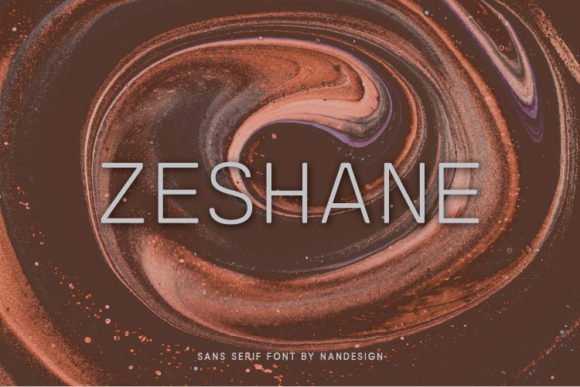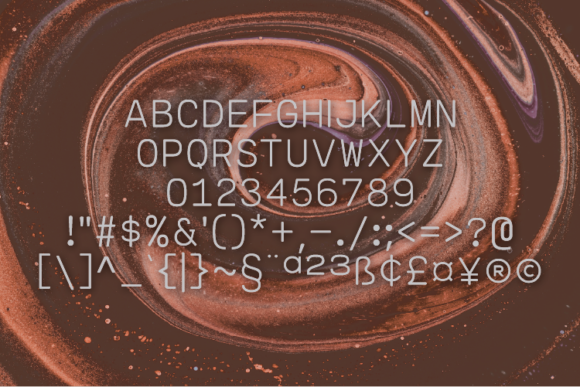
Zeshane
About Zeshane Font
Zeshane is a neat sans serif font created to complement every project you’re working on.It is perfect for displays, headers, invitations, save the dates, weddings, and so much more!